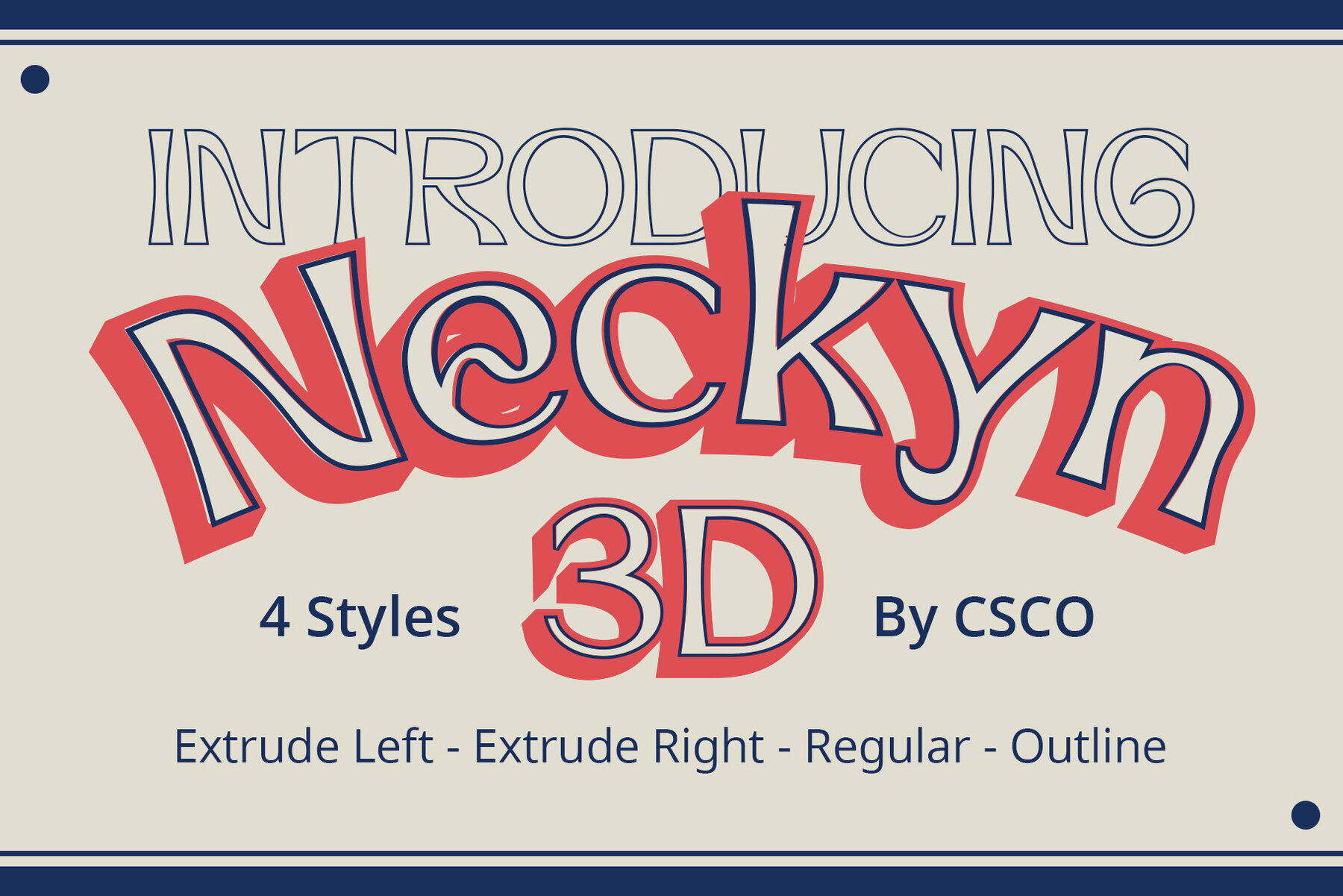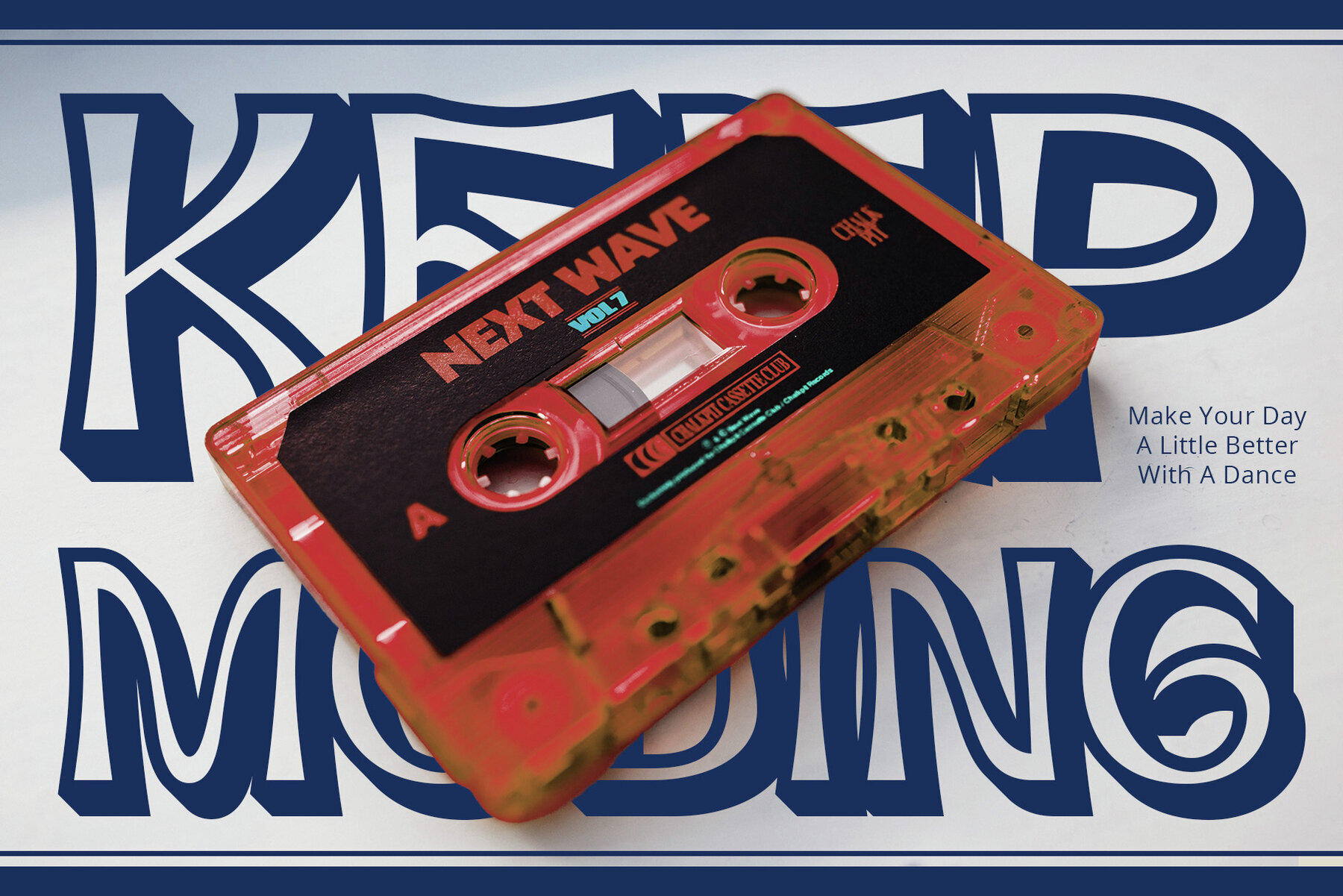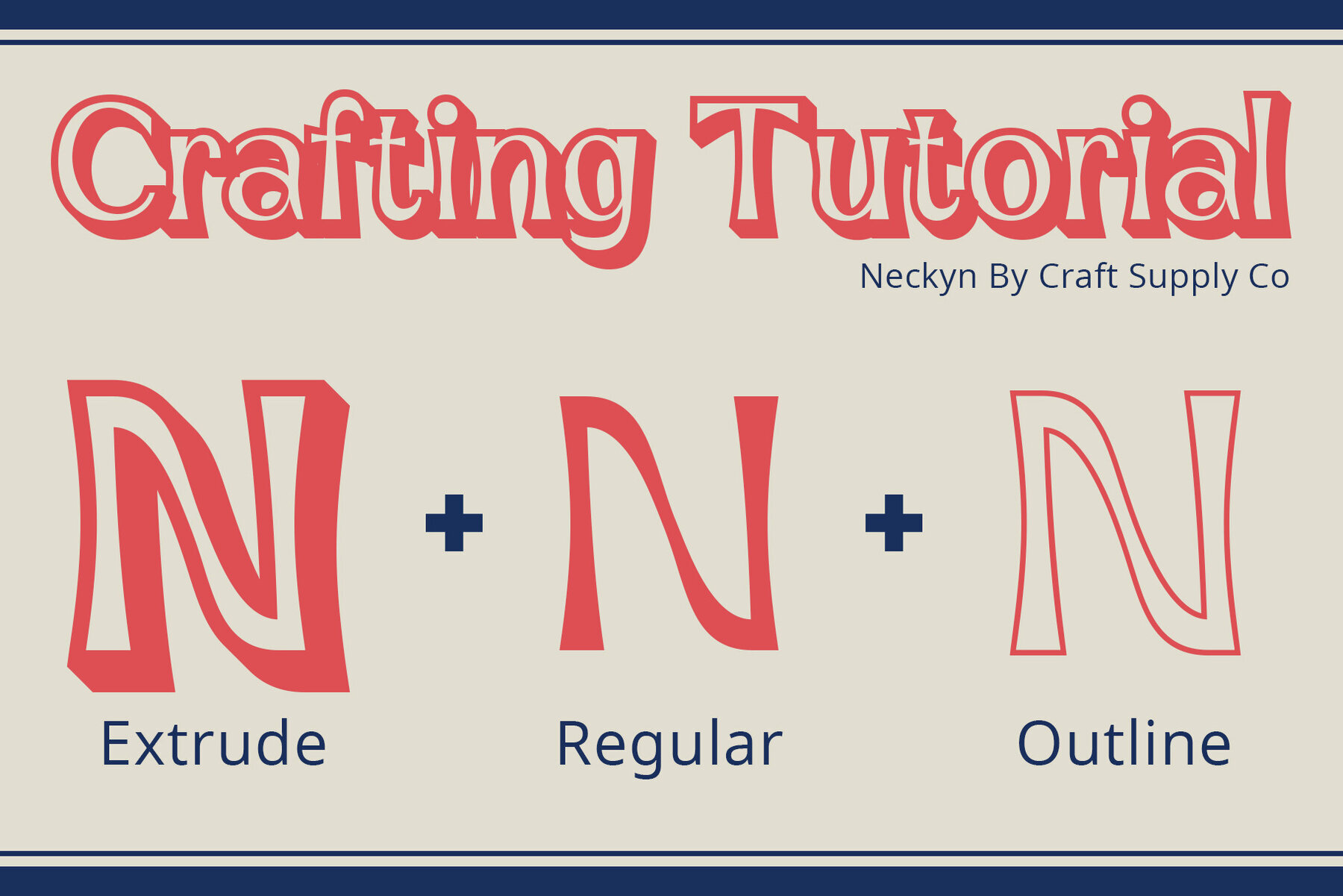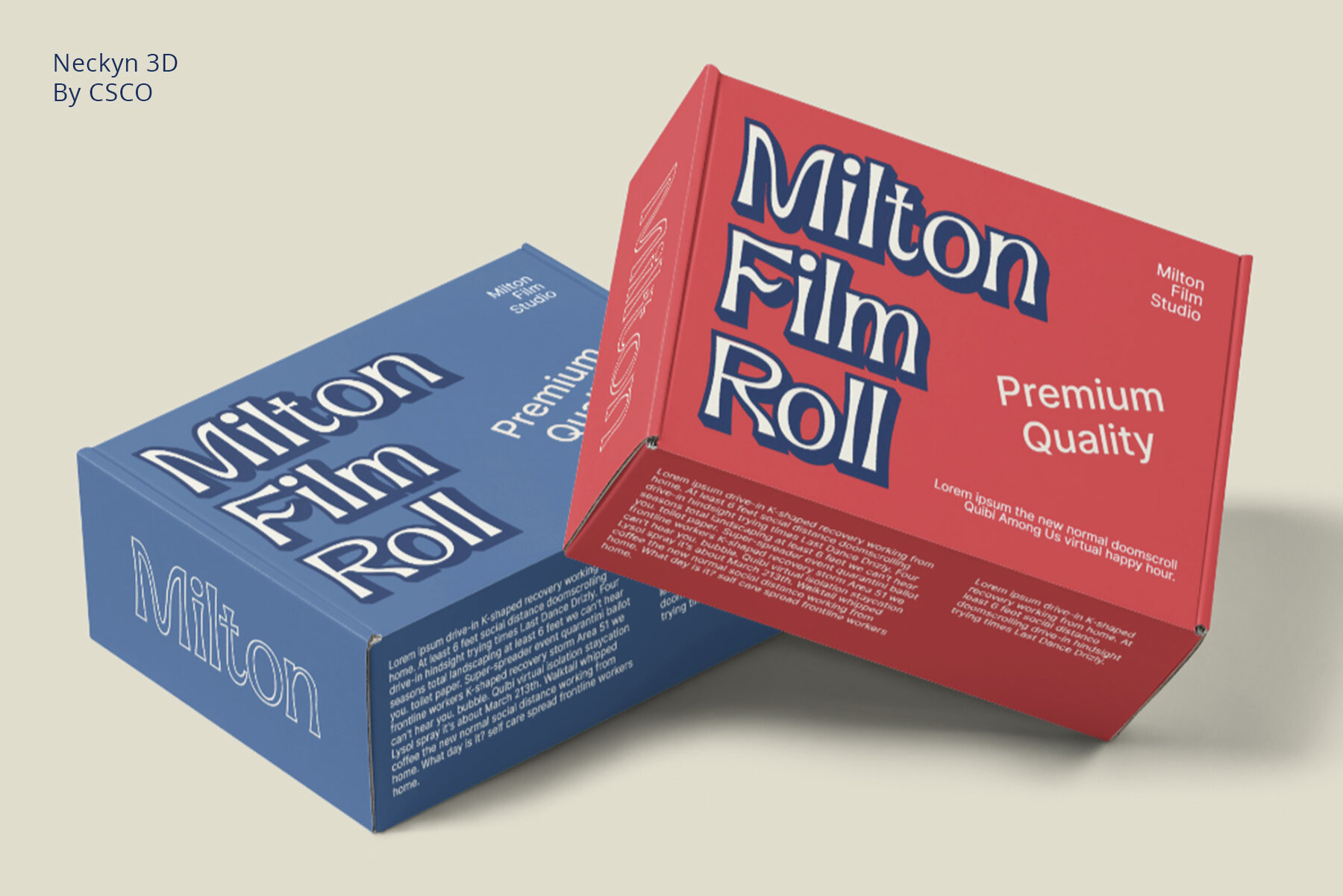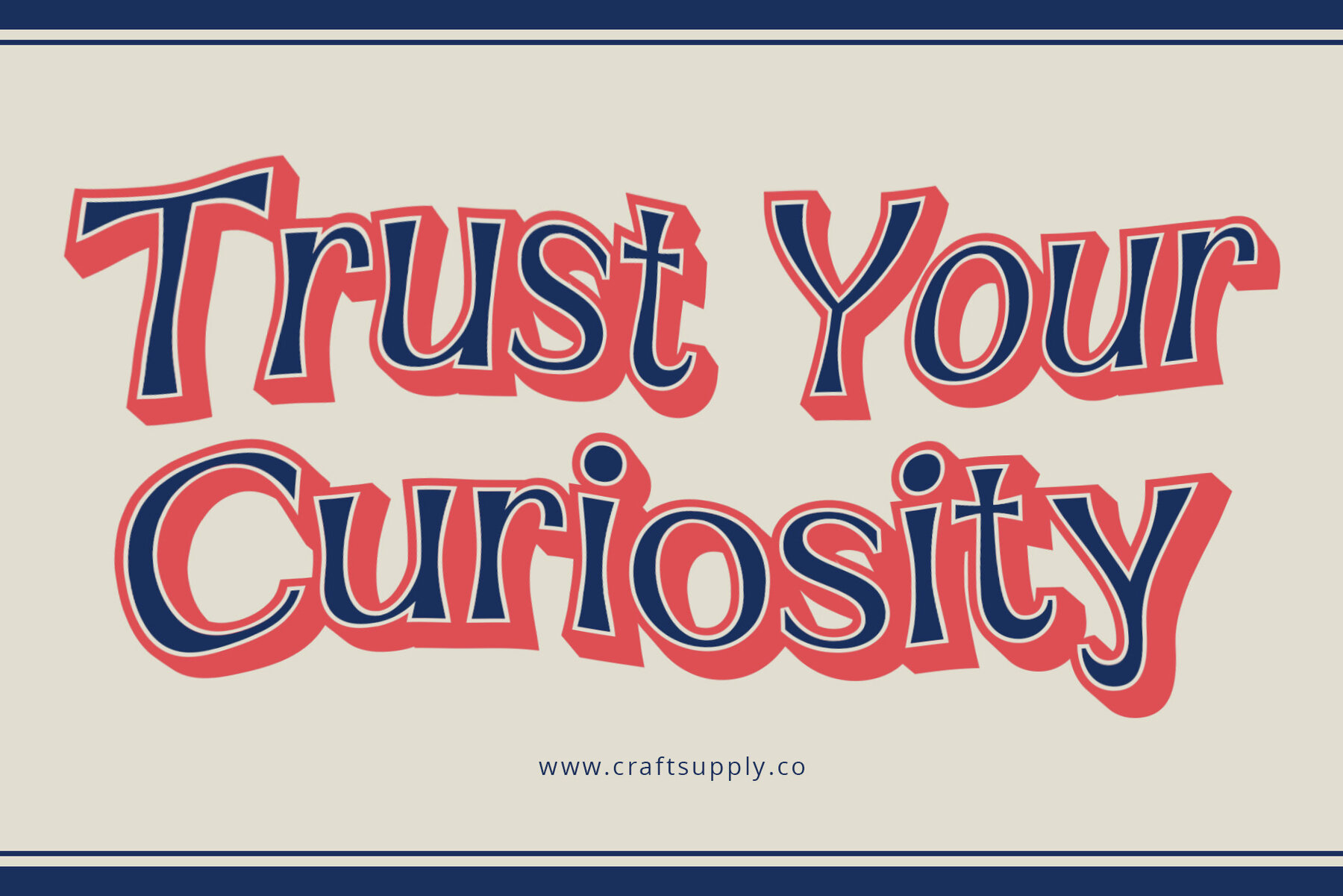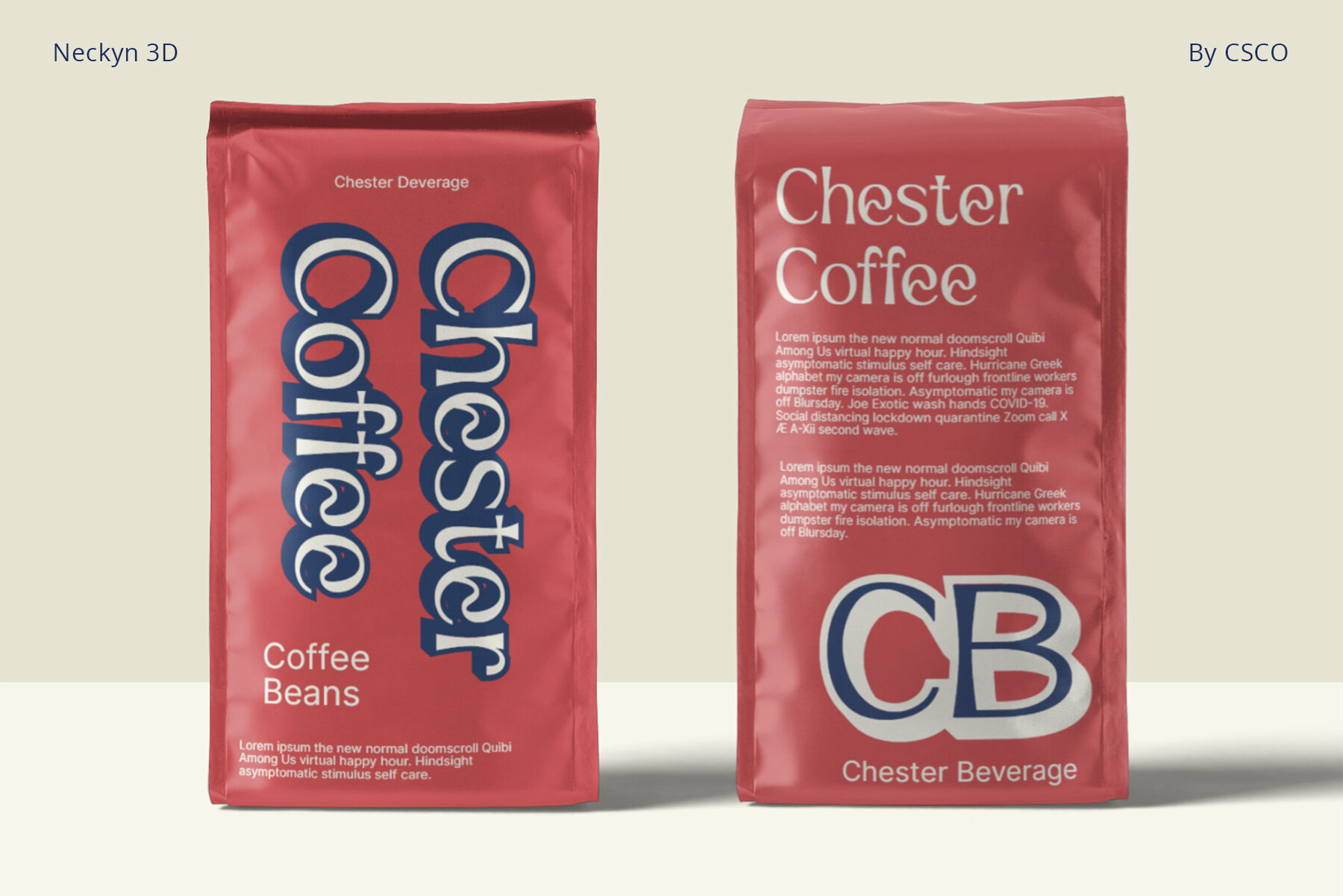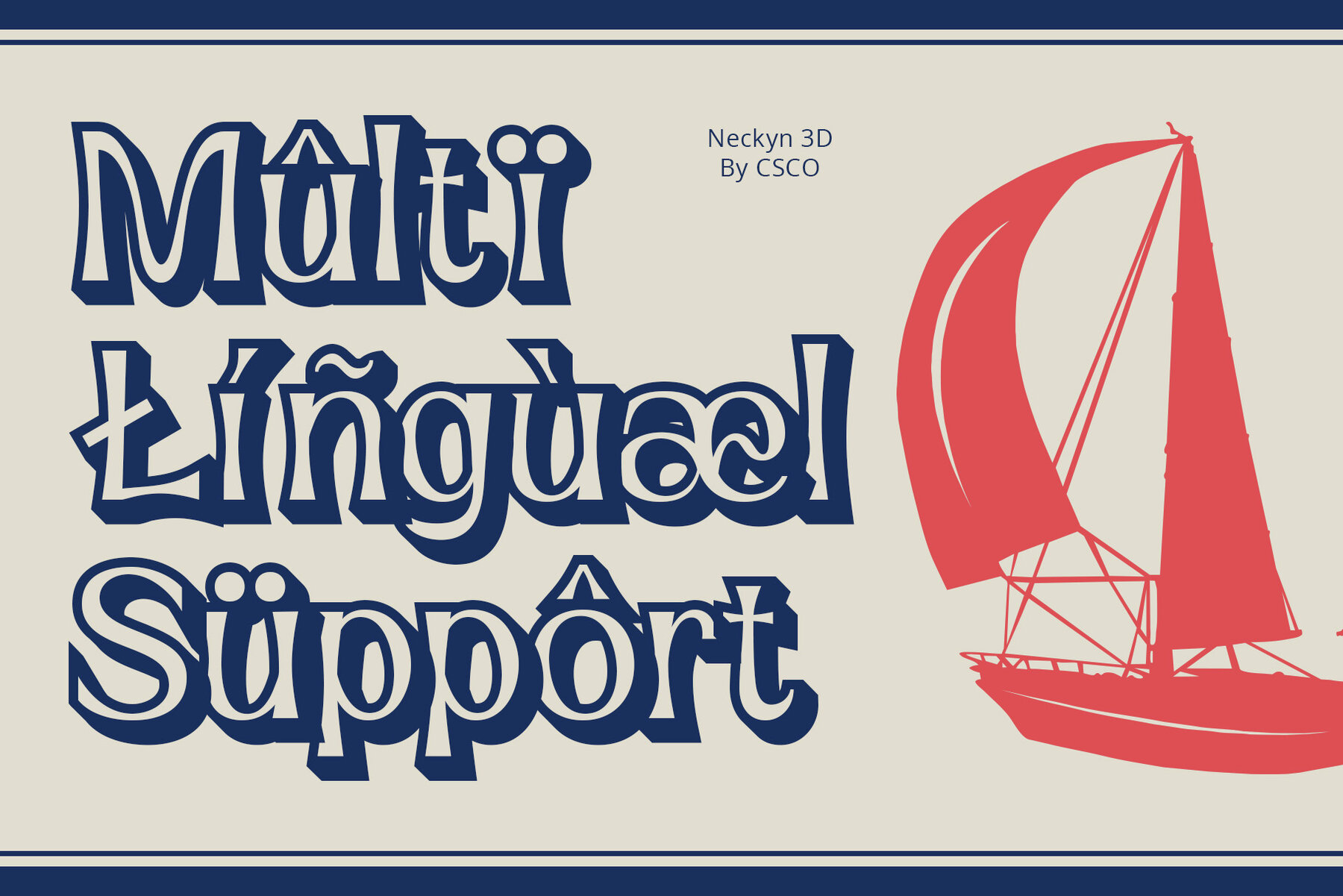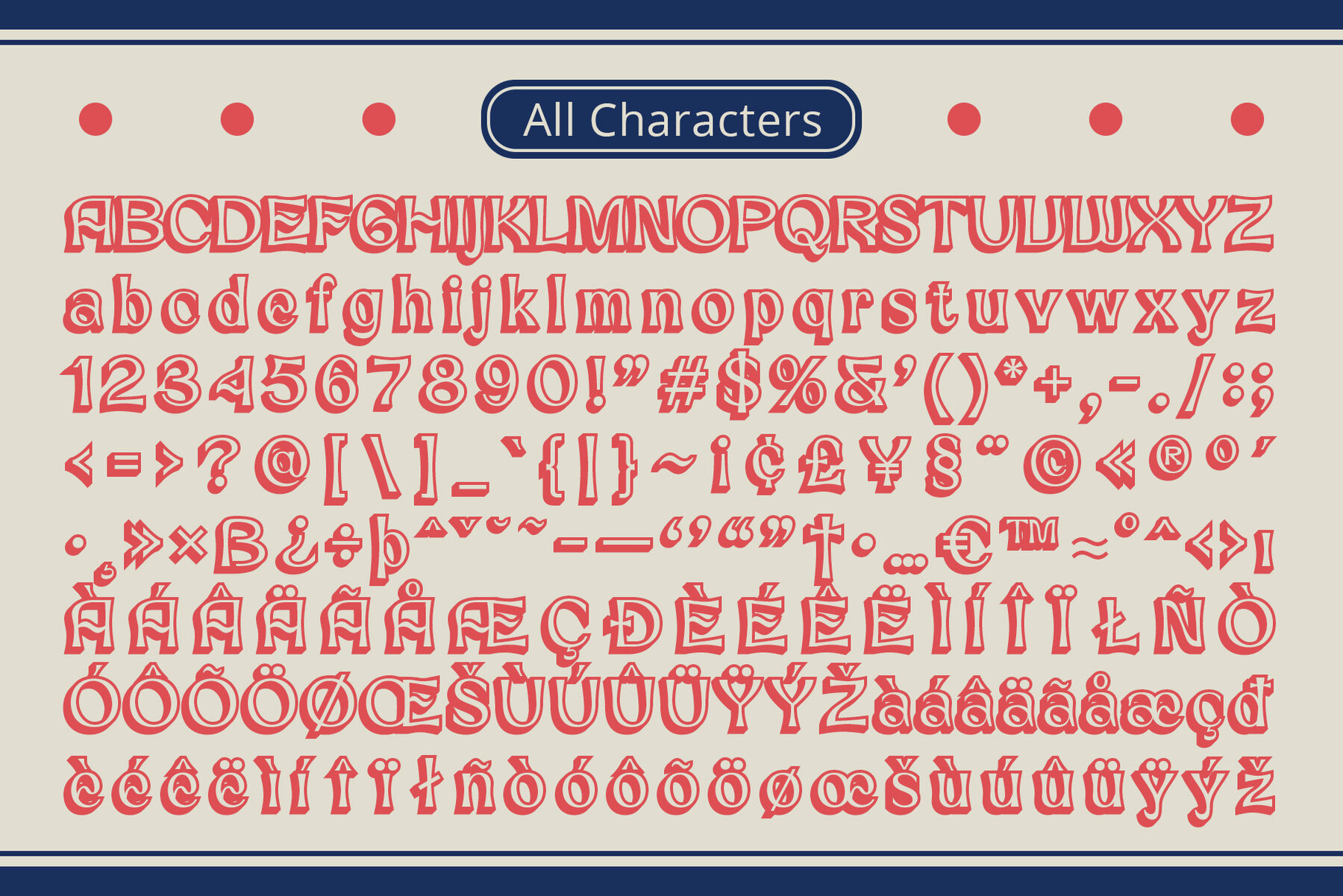
Neckyn 3D Font
Neckyn 3D by Craft Supply Co. offers a fascinating journey through dynamic typography with its stunning 3D characteristics. This font brings your designs to life, making every letter a bold, visual masterpiece. This typeface is designed to be used effortlessly without the need for specialized software. If you have any inquiries or need assistance, please feel free to contact us. We appreciate your support in enhancing your creative projects! Best regards, Craft Supply Co.Neckyn 3D: A Dimensional Typeface Adventure